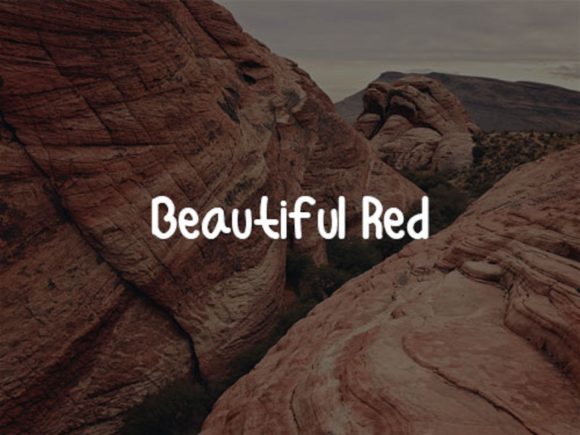
Introduction to Red Stone Font
Have you ever stared at a blank canvas, trying to bring your creative project to life, only to be halted by the perfect font that just doesn’t exist? This is where the Red Stone Font comes in – a sweet and friendly handwritten font that’s sure to spark inspiration for your next design.
With its natural and unique style, the Red Stone Font is incredibly versatile, making it a valuable design resource for any creative project. Whether you’re working on a high-quality marketing campaign or a personal project, this font is sure to elevate your design to the next level.
Key Features of Red Stone Font
- High-quality font with a unique, stone-inspired design, perfect for creative projects and designs that require a distinctive touch.
- Designed to be versatile and suitable for a wide range of creative projects, from logos and branding to typography and graphics.
- Unique characteristics include a bold, rugged feel and a subtle texture, adding depth and visual interest to any design.
Honest Review: Red Stone Font
As a designer, I’m always on the lookout for high-quality design resources to elevate my creative projects. Recently, I stumbled upon the Red Stone Font, and I’m excited to share my honest review.
- ✨ Unique and elegant design: The Red Stone Font boasts a sophisticated and modern aesthetic that’s perfect for any design project.
However, I do have a few reservations:
- ⚠️ Limited character set: The font only includes a limited set of characters, which may not be suitable for longer texts or complex design projects.
Overall, I’m impressed with the Red Stone Font’s design and quality. While it may have some limitations, it’s still a valuable resource for designers looking for a high-quality, free download. I’d definitely recommend it for smaller creative projects or as a complement to other design elements.
The Red Stone Font is ideal for various design applications, including logos, brochures, business cards, and social media graphics. Its versatility and unique style make it a great choice for designers looking to add a touch of sophistication and creativity to their projects.